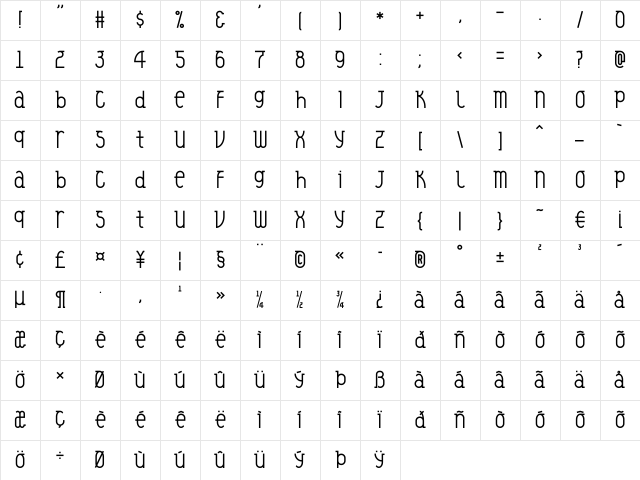
Veysel Medium Free Font
Veysel Medium
Complete Veysel Medium glyph index. Displaying only characters natively supported by Veysel Medium font.
Design Context for Veysel
Veysel is a composed and adaptable typeface that performs quietly and consistently across a wide range of design contexts.